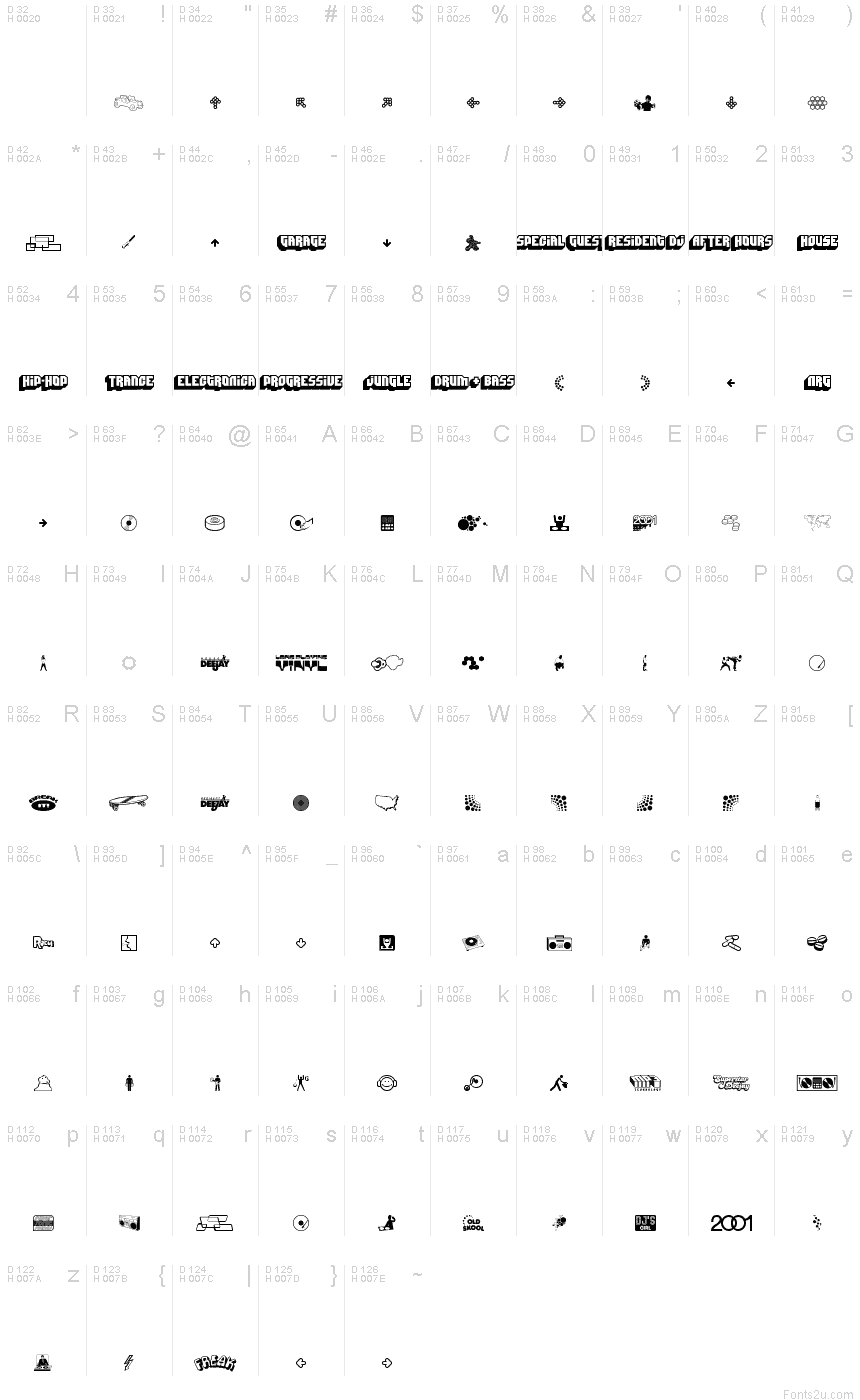
Deejay Supreme
Deejay Supreme font by Font"a"licious Fonts is a free dingbat typeface that turns your keyboard into a tiny DJ booth. Every glyph is a bold, inky icon: spinning records, slick headphones, chunky speakers, club flyers, and soundboard gear, all drawn with thick strokes and punchy silhouettes that pop even at small sizes. It feels like a stack of old flyer art and rave stickers got distilled into a crisp, black‑and‑white toolkit.
Using Deejay Supreme, you can build instant visuals for party posters, club nights, DJ logos, mixtape covers, YouTube thumbnails, event wristbands, and social media promos. The icons read fast and loud, making them a natural fit for high-energy layouts and tight production timelines. This free font pairs easily with a clean, condensed sans serif—set the text slim and tall, then drop these dingbats in as bold accents or dividers.